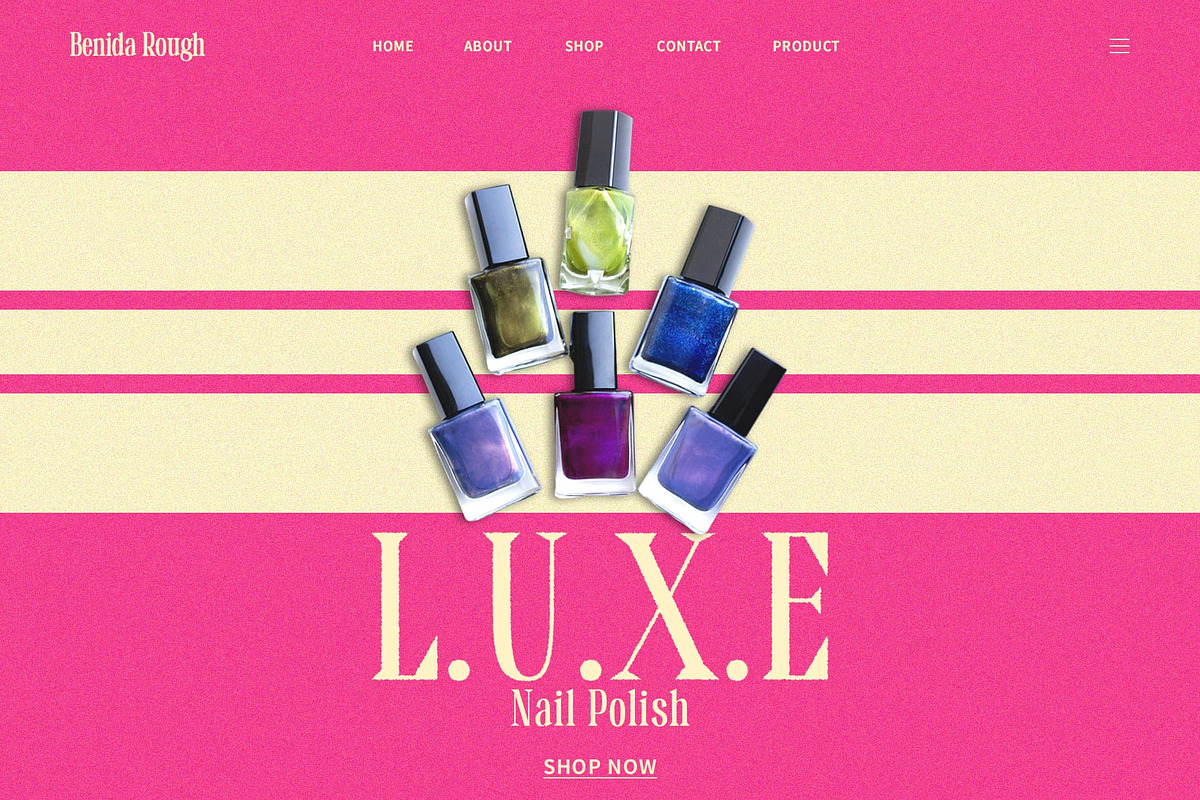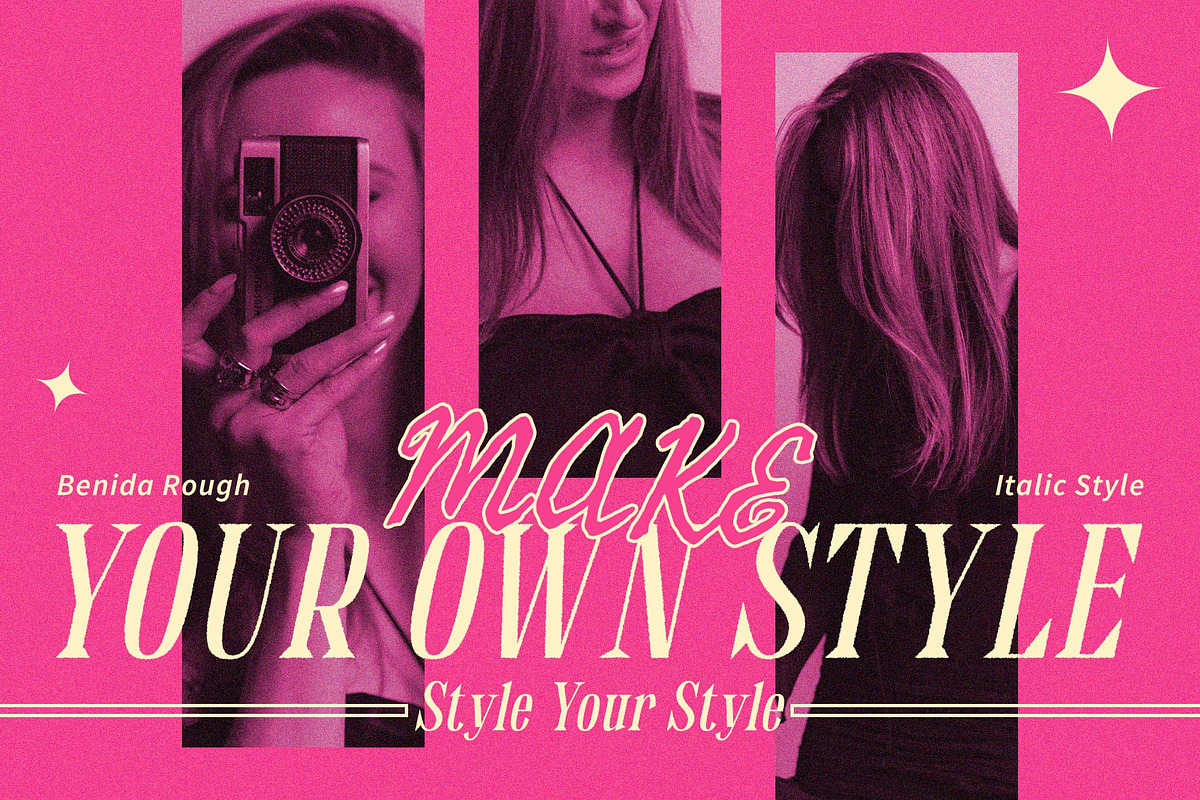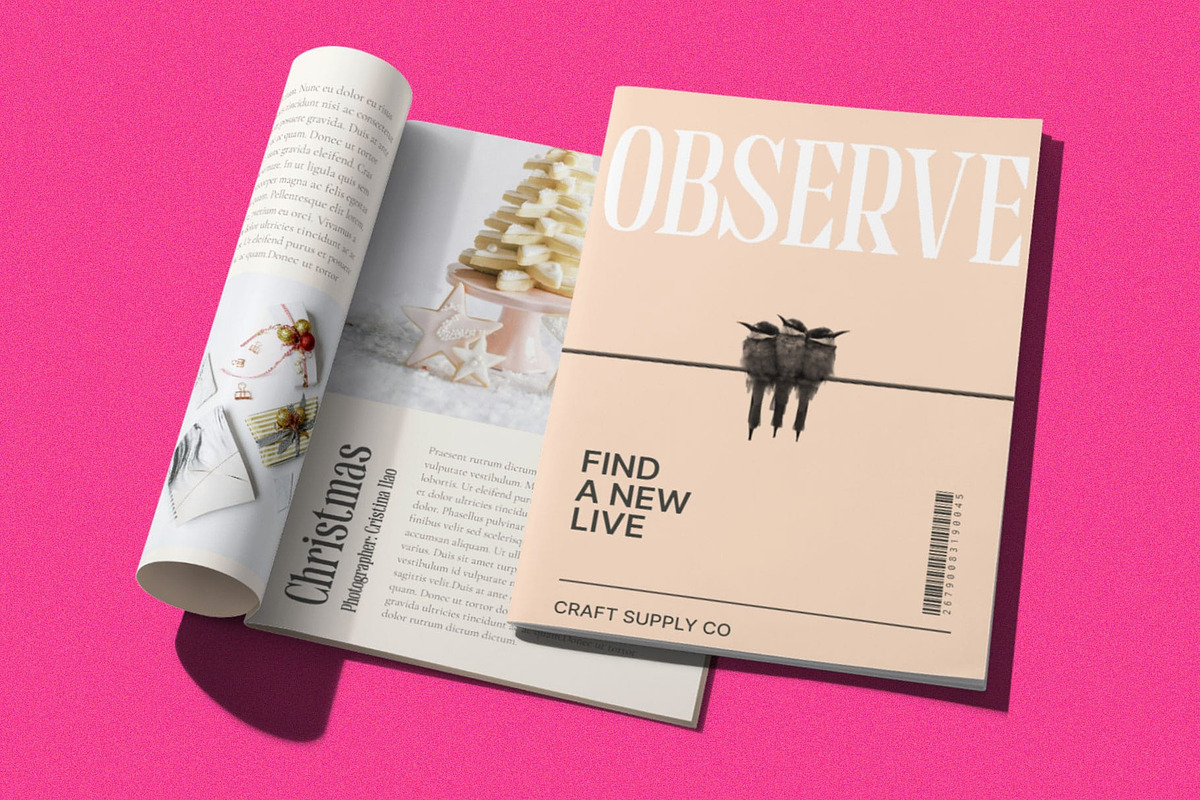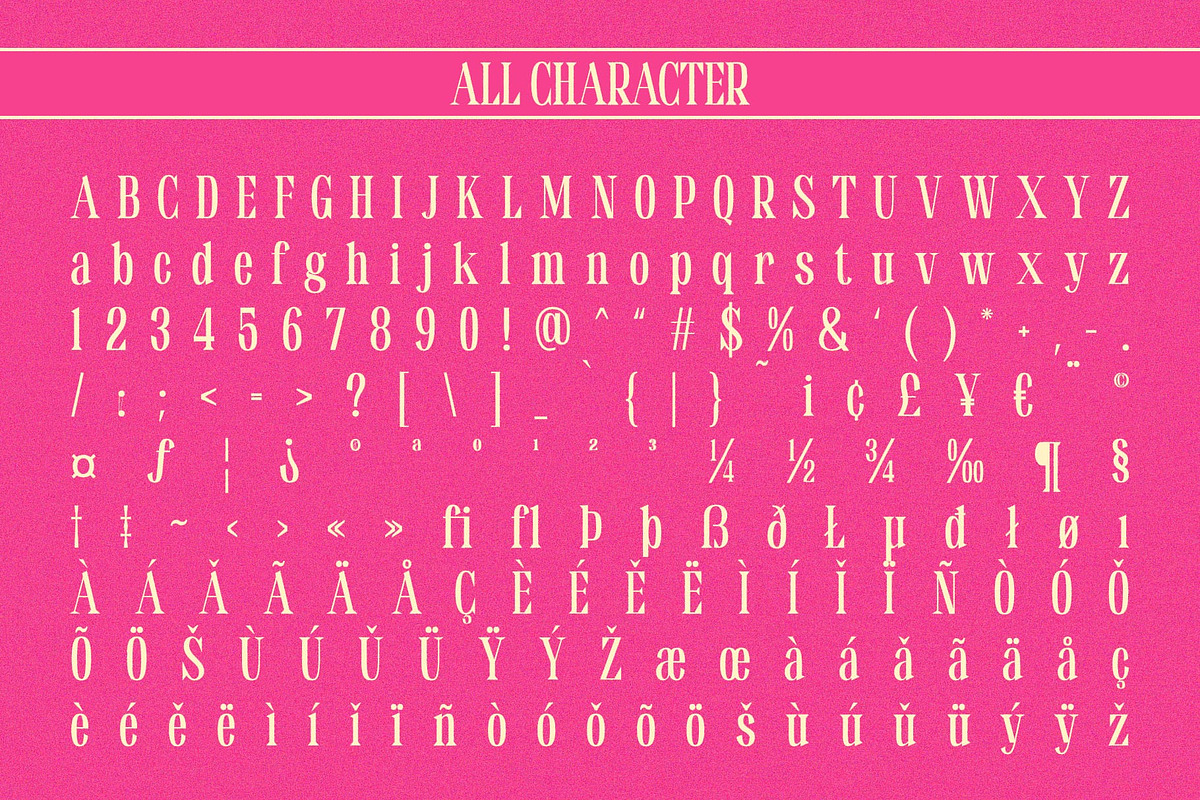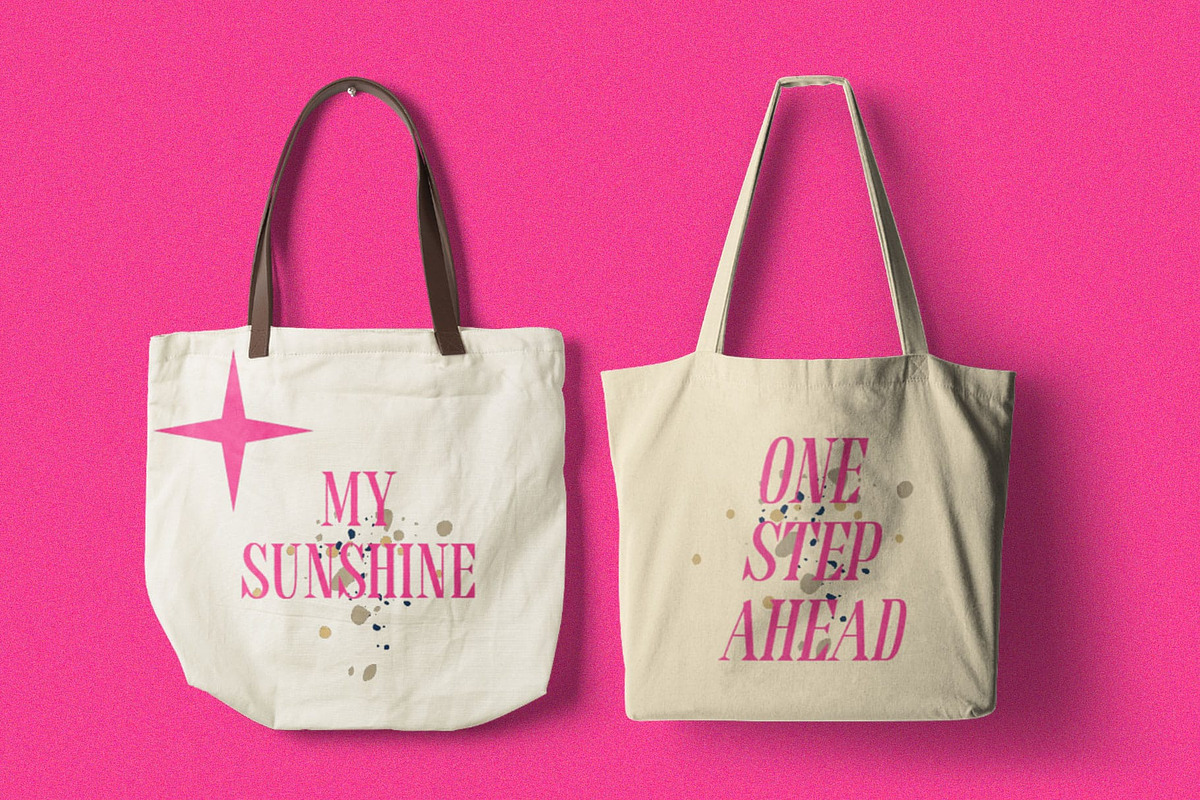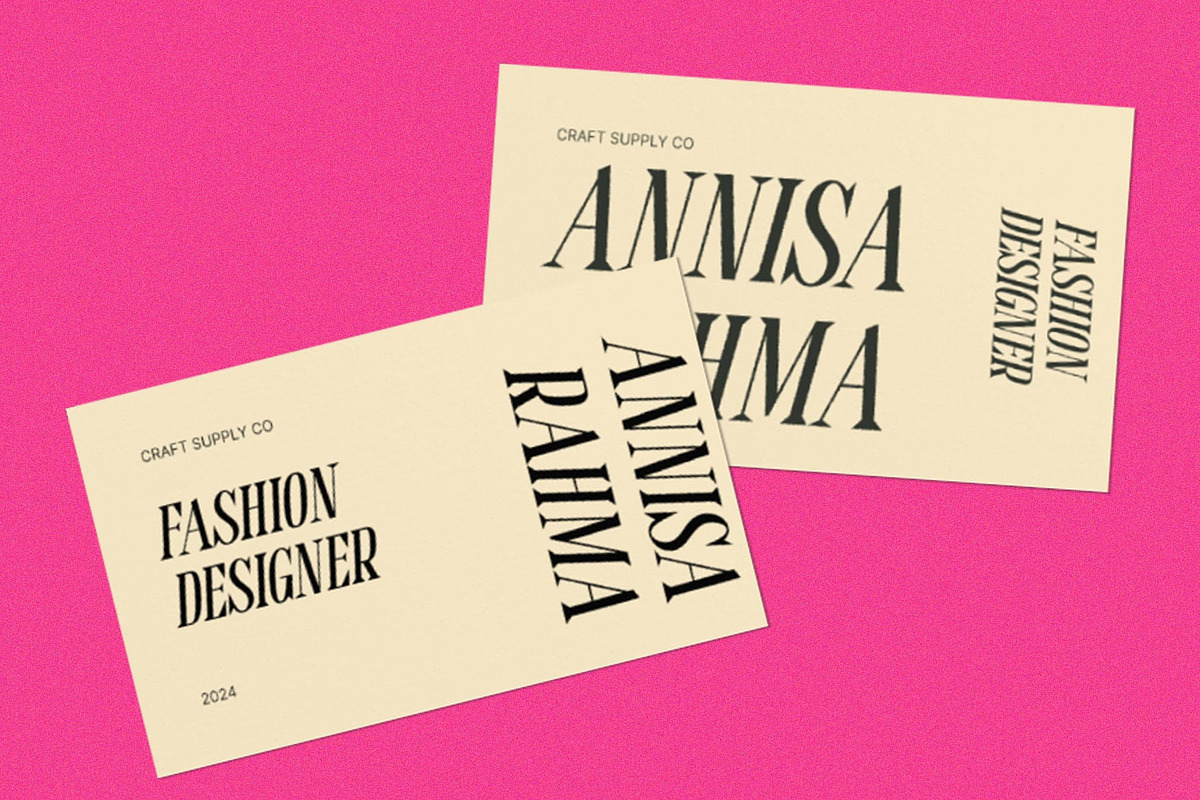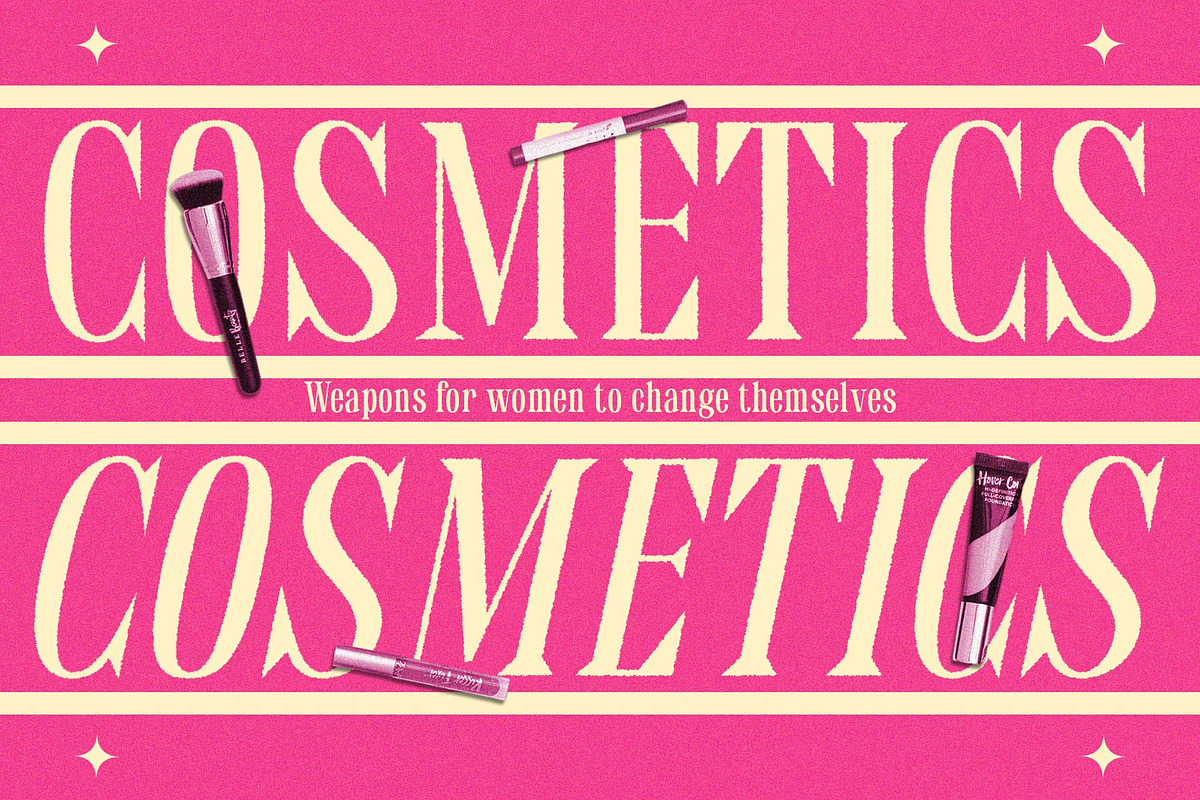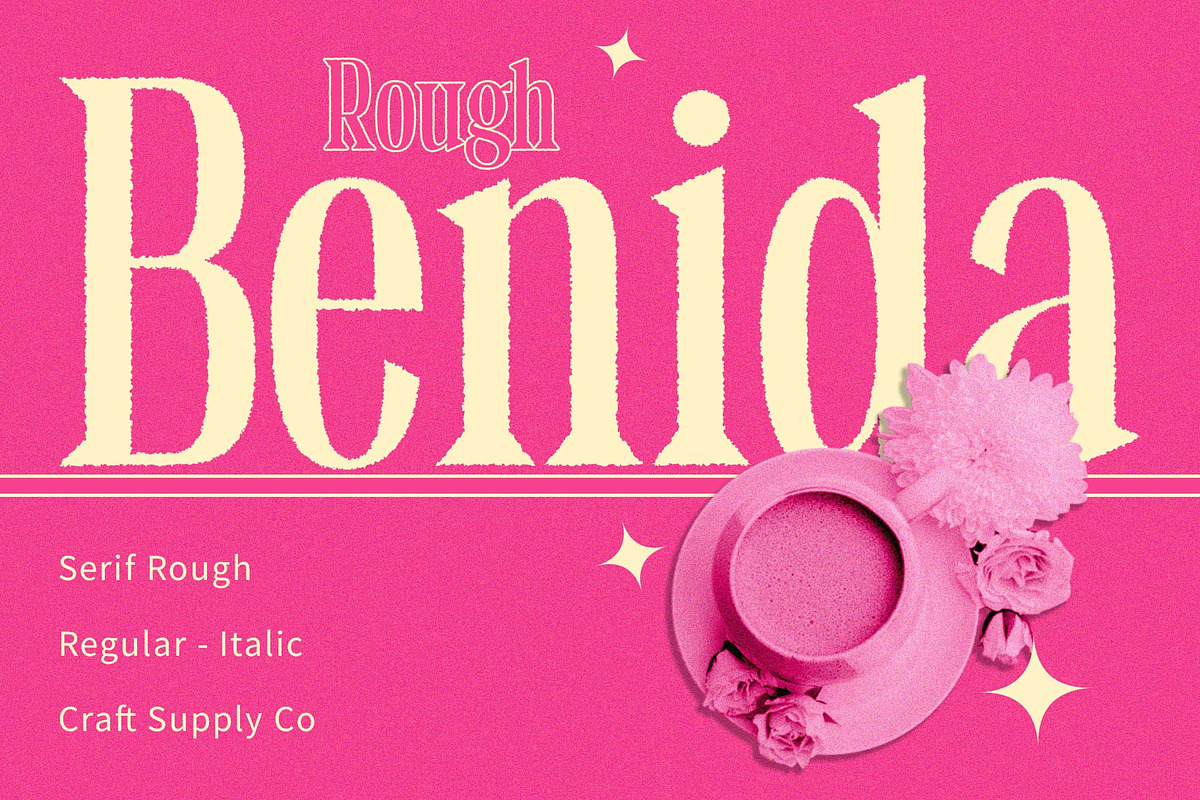
Benida Rough
Benida Rough: Bold Display Typography
Condensed Serif Design Benida Rough features a striking condensed serif design that commands attention in any display setting. Its sleek and compact letterforms make it an ideal choice for headlines and titles.
Rough Texture for Added Impact The rough texture of This font adds a rugged and edgy quality to its condensed serif form. This unique rough effect enhances its visual appeal, making it stand out in display applications.
Tailored for Display Fonts Designed specifically for display purposes, This font excels in capturing audience attention. Its bold and condensed lettering ensures maximum impact, whether used in posters, banners, or branding materials.
Versatile and Impactful Beyond its striking appearance, This font offers versatility in application. From digital platforms to print media, its condensed serif style with rough texture leaves a lasting impression on viewers.
Distinctive Display Typography This font emerges as a bold and impactful choice for display typography. Its condensed serif design, coupled with a rough texture effect, ensures maximum visual impact across various display applications. Step up your design game with This font and make a lasting impression on your audience.